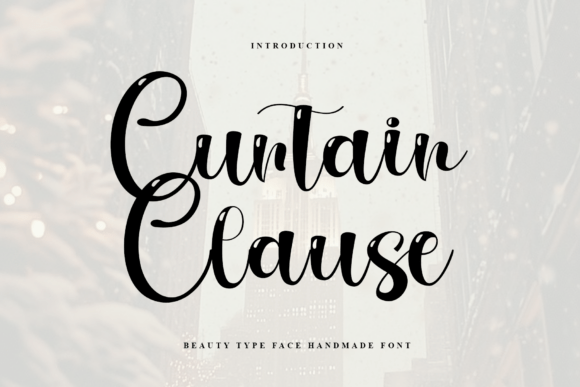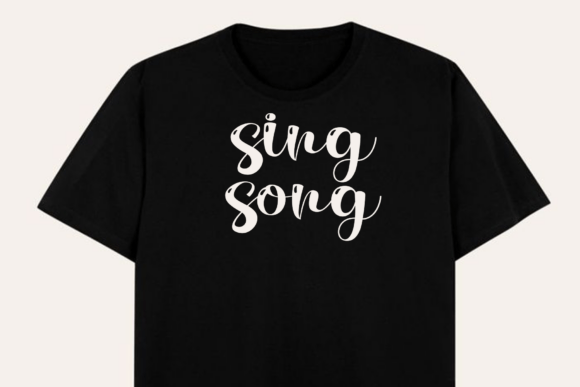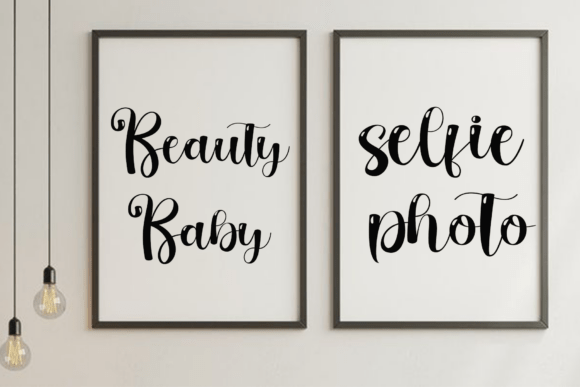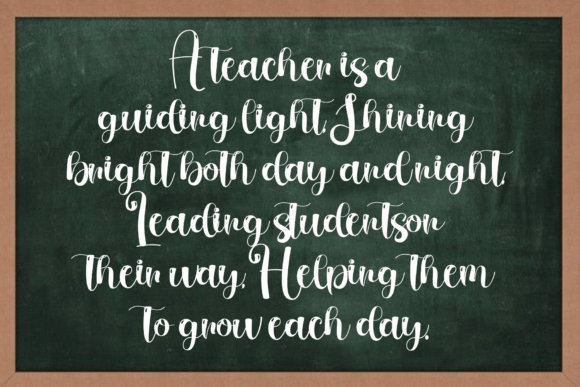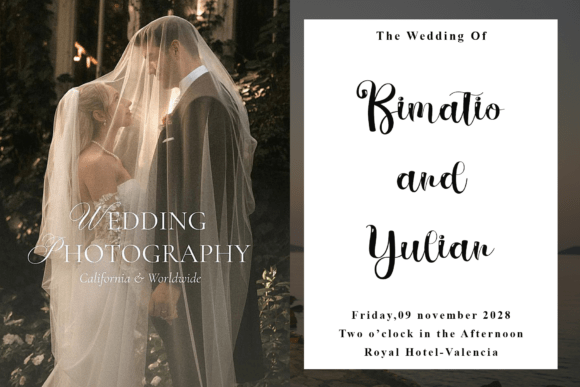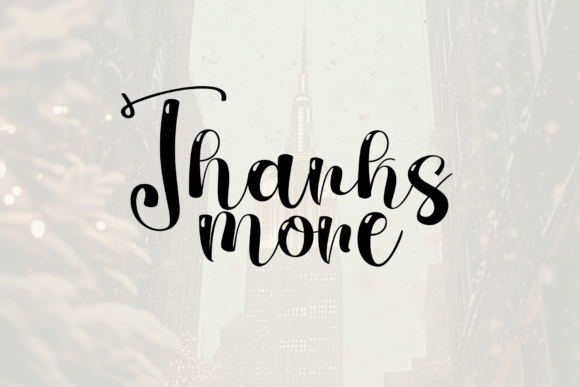
The Perfect Script for a Personal Touch
Remember the first time you saw a handwritten note from a loved one? The way it made you feel seen and appreciated? That’s the magic of handwritten typography. It’s a personal touch that adds warmth and character to any design. As designers, we’re always on the lookout for fonts that capture that special something, and that’s where the Curtain Clause Font comes in.
This bold and expressive handwritten font is designed to make a statement. With its unique flared style and thick vertical strokes, it’s perfect for family-themed designs, personalized gifts, and custom greeting cards. Whether you’re creating a heartfelt message or a strong title, the Curtain Clause Font is sure to add a charismatic and genuine touch to your project.
Curtain Clause Font Key Features
- Unique Characteristics: Curtain Clause Font features a unique blend of modern and vintage elements, with intricate details and ornaments that evoke a sense of luxury and sophistication.
Curtain Clause Font Review
Overall, I think the Curtain Clause Font is a solid choice for designers looking for a unique, elegant look. Here are some of its strengths and weaknesses.
- Unique style: The Curtain Clause Font has a distinct, hand-drawn feel that sets it apart from more generic fonts.
- Elegant look: The font’s curves and lines give it a sophisticated, high-end feel that’s perfect for luxury brands or formal designs.
- Good legibility: Despite its ornate appearance, the font is still easy to read, making it a great choice for body text or headings.
- Limited font sizes: The font’s intricate details can get lost at smaller font sizes, making it less suitable for smaller text.
- Not ideal for bold text: While the font is great for headings, it’s not the best choice for bold or emphasis text, as the bold weight can feel clunky.
Overall, I think the Curtain Clause Font is a great choice for designers who want to add a touch of elegance to their designs. While it may have some limitations, its unique style and good legibility make it a solid choice for a variety of projects.
Tips for Getting the Most Out of Curtain Clause Font
To get the most out of Curtain Clause Font, use it in combination with other design elements, such as images, shapes, and colors. Experiment with different font sizes, colors, and styles to create a unique and visually appealing design. You can also use the font to create a focal point in your design, such as a title or heading.
Common Use Cases for Curtain Clause Font
Curtain Clause Font is suitable for a variety of design projects, including:
- Event graphics and signage
- Printed materials, such as business cards and brochures